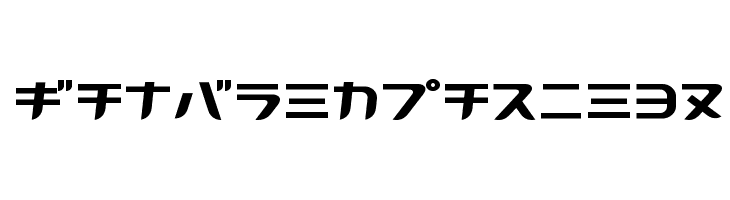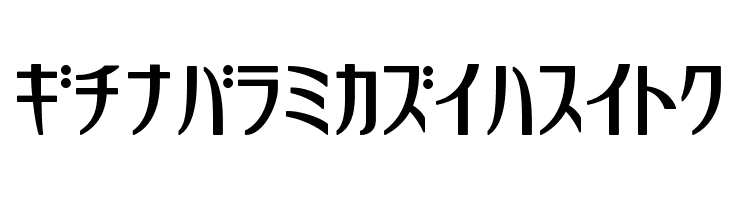
A bold, geometric font with a modern and cohesive design.
A bold, modern sans-serif font with geometric shapes and consistent stroke width.
A sleek, modern font with a futuristic and dynamic design.
A bold, geometric font with a modern and minimalistic design.
A bold, geometric font with a modern and clean aesthetic.
A bold, geometric font with a futuristic and modern style.
A bold, angular font with a futuristic and geometric style.
A bold, rounded font with a playful and modern style.
A bold, retro-style font with thick, rounded edges and a playful design.